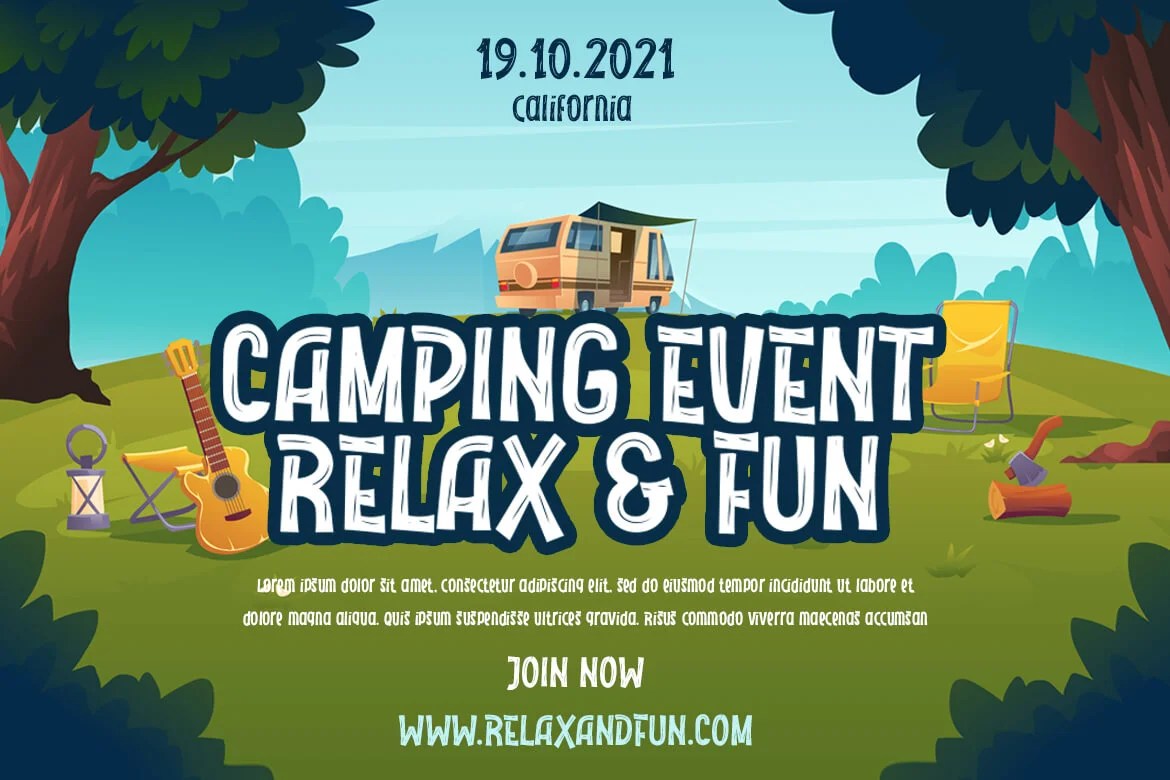
Good fonts for outdoor event posters need to catch attention fast and hold up printed at a large size, since a poster usually competes with a busy street or noticeboard for a few seconds of attention. Here are four Twinletter display fonts built with that kind of bold presence, each with a slightly different personality.
Making typography the centerpiece of a poster design is a well-established approach — large-scale, well-chosen type at a large size and in a contrasting color reliably catches attention and helps the event name actually stick in a viewer’s memory. That principle applies directly to fonts for outdoor event posters, where the event name usually has to do most of the communicating on its own.
Geyalu — a “playful” font described as “relaxed but still elegant,” with a hand-drawn, natural quality suited to community or outdoor-activity events.
Backeth — a “fun” typeface with a “wood character,” described as “dramatic, distinctive, flexible” — a strong pick for a rustic, outdoor, or nature-themed event.
Qindars — described as having a “unique and fun theme,” built with attention to precision in each letter for a “beautiful combination of letters” at poster scale.
Danki — a “playful” display font with “natural hand strokes,” shipping with two alternates per character for more variation across a poster’s headline and details.
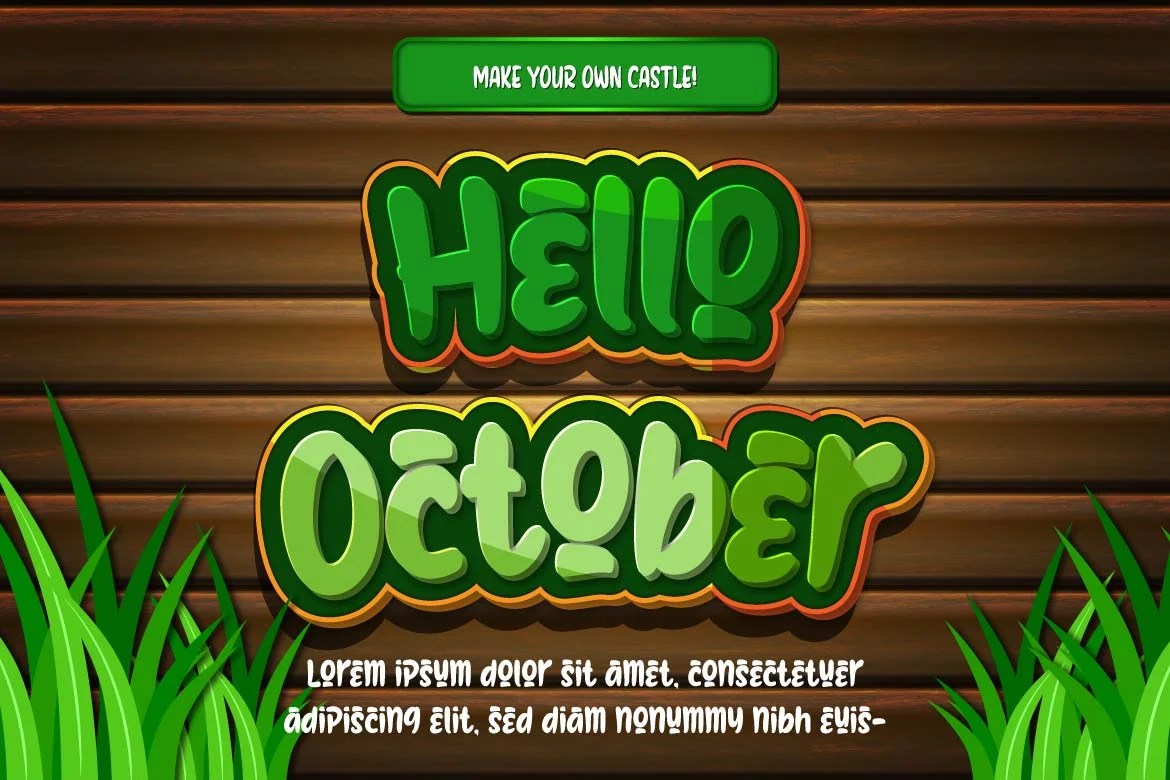
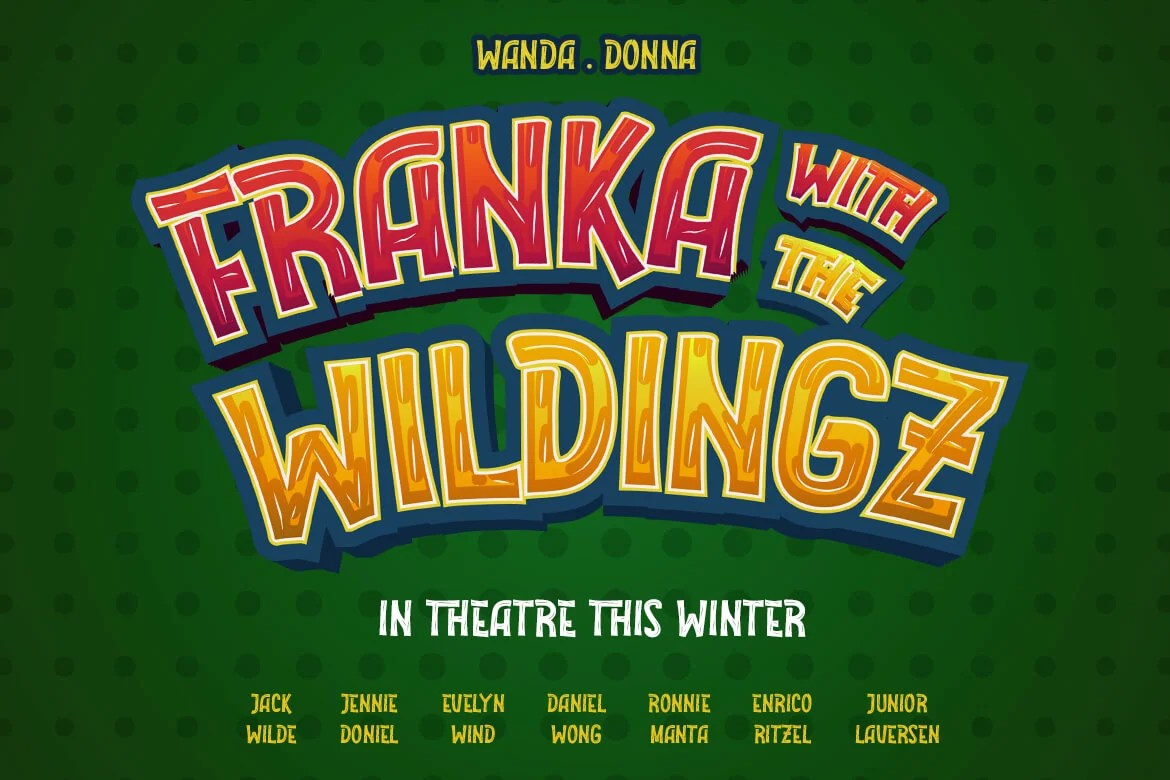
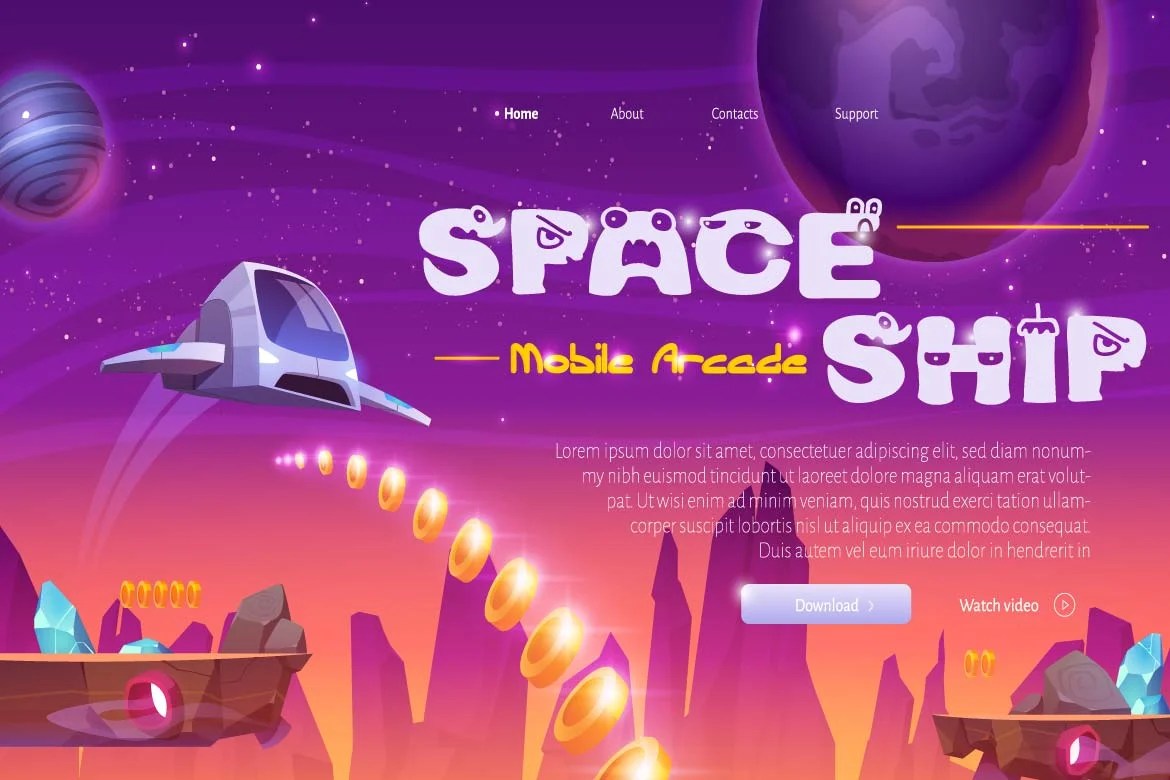
Beyond those individual leanings, all four fonts for outdoor event posters share the same broader use case and feature set. Twinletter positions all of them for games, book titles, outdoor activities, banners, quotes, and branding — so any of the four can extend from a single event poster into a wider campaign.
Since all four fonts for outdoor event posters come from the same product generation, the fastest way to narrow it down is to set your actual event name in each type tester at large size and check it from a few steps back, the way a passerby would see it.
Since this is a smaller roundup, it’s also worth planning beyond the poster itself — the same fonts for outdoor event posters can typically extend to social media promotion, printed tickets, and on-site signage, so picking one that reads well at both banner size and phone-screen size keeps the whole campaign consistent.
How big should the event name be on an outdoor poster? As large as the layout allows — typography made the clear focal point, in a large size and a contrasting color, is what actually catches a passerby’s attention and makes the event memorable.
Can these fonts be used for anything besides outdoor event posters? Yes — all four are also positioned for games, book titles, banners, quotes, and general branding, alongside outdoor event and festival poster design.
Do these fonts support languages other than English? Yes, all four fonts for outdoor event posters include multilingual support, making them usable for events and campaigns outside English-only markets.